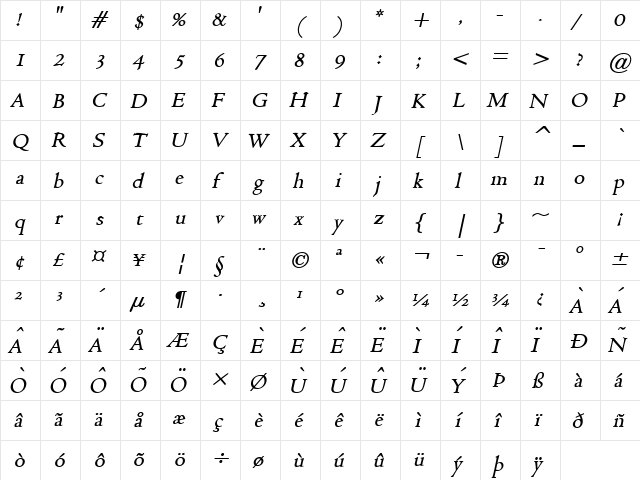
Viviene BoldItalic
Design Context for Viviene Typeface
Viviene takes a measured approach to typography — its balanced proportions and neutral character make it a reliable workhorse for both digital and print work. The slanted form adds forward momentum and visual energy. Its bold stroke weight gives it real presence on the page.
Pro Tip: Try Viviene for annotation and caption copy alongside an upright companion — the contrast in angle creates a dynamic but ordered typographic system.